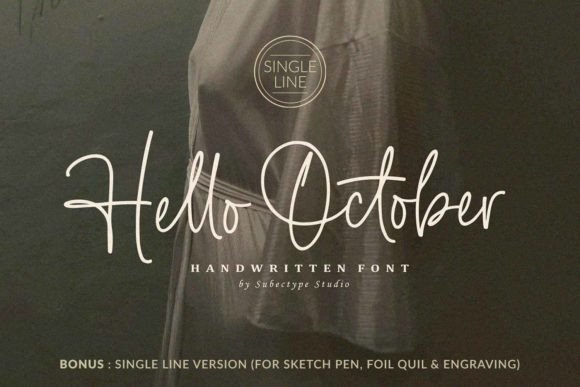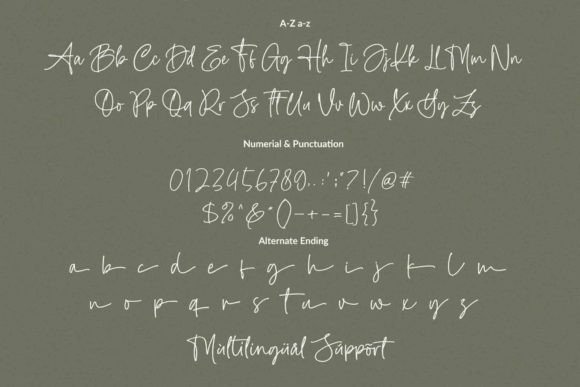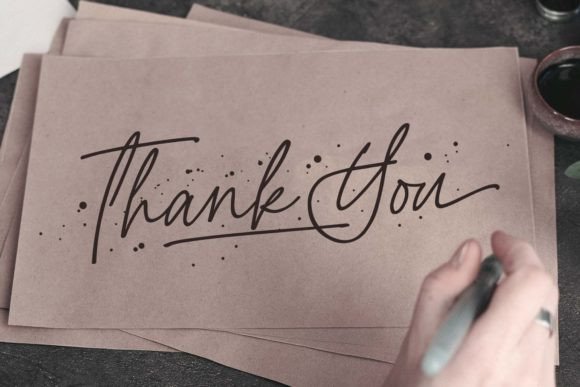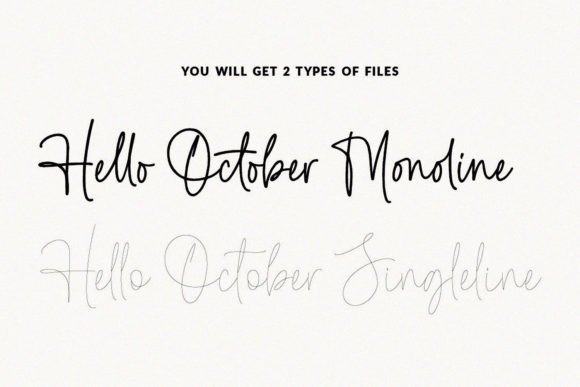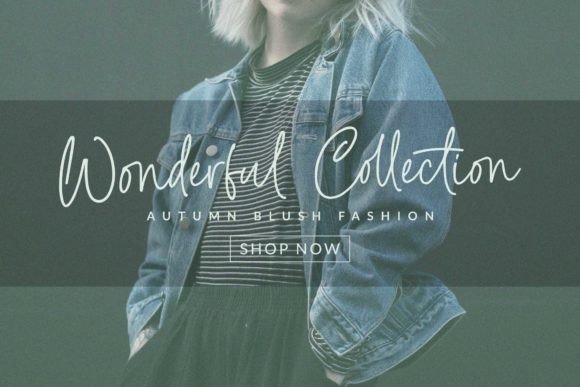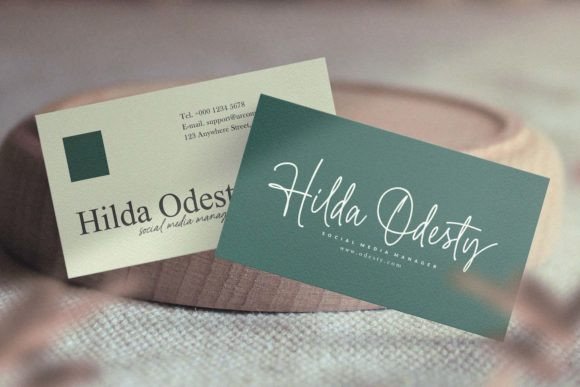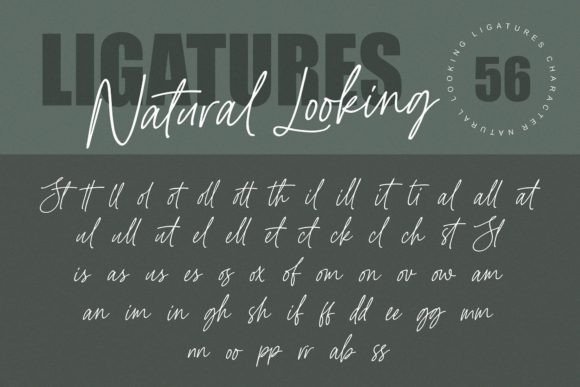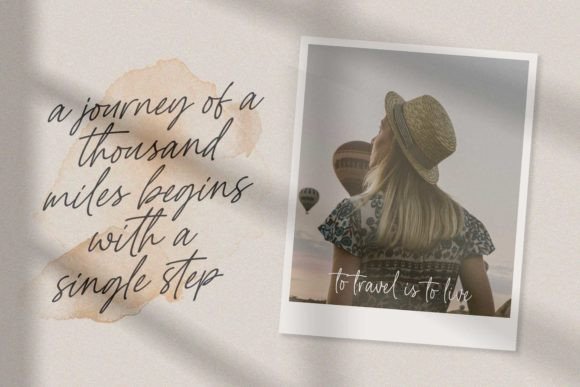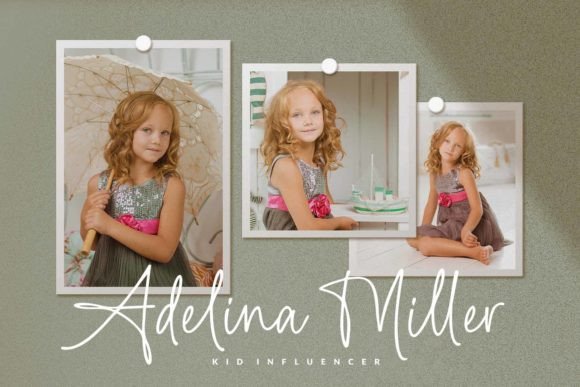
Hello October Font
“Hello October” is not just a font; it’s an authentic handwritten typeface with a romantic touch that elevates your designs with a sense of warmth and charm. Meticulously crafted, this font is designed to become a true favorite, adding a touch of romance and authenticity to each of your creative ideas.
The beauty of “Hello October” lies in its authentic handwritten style. Its strokes carry a sense of personal touch, making it perfect for projects where you want to convey a genuine and romantic atmosphere. Whether used for quotes, invitations, or any design that requires a heartfelt touch, this font delivers.
Imagine “Hello October” gracing wedding invitations, where its romantic touch enhances the overall elegance and sentiment. Picture it on quotes, where its authenticity adds depth to the words. Envision this font on any creative project, and it effortlessly brings each idea to the highest level, creating a memorable and distinctive look.
One of the standout features of “Hello October” is its ability to evoke emotions. Its romantic touch adds a layer of depth to your designs, making it suitable for projects where you want to create a connection with the audience.
Whether you’re working on personal invitations or crafting quotes for social media, “Hello October” offers an authentic and romantic perspective. It’s not just a font; it’s a creative tool that allows you to infuse your designs with a touch of heartfelt charm. Let “Hello October” be the romantic handwritten typeface that transforms your creative endeavors into beautiful and memorable works of art.